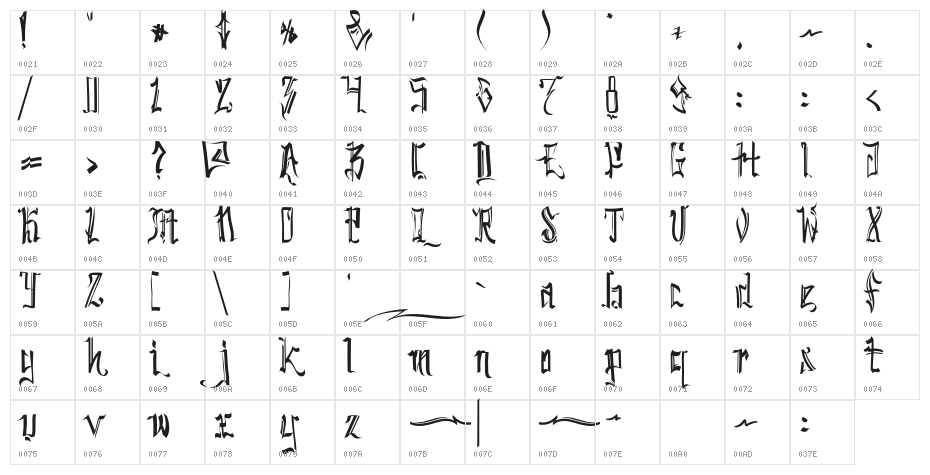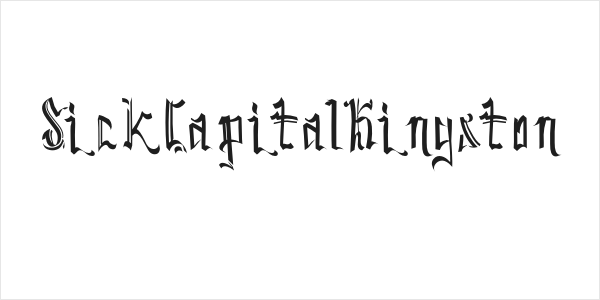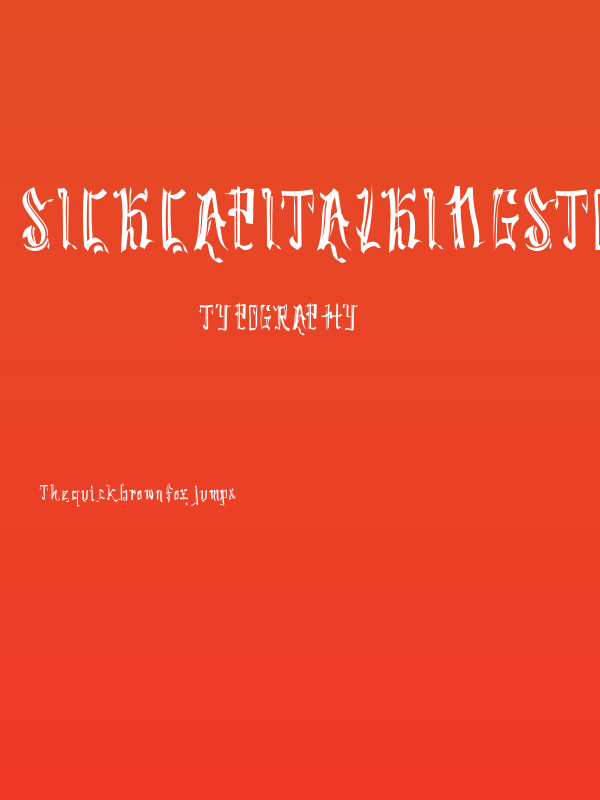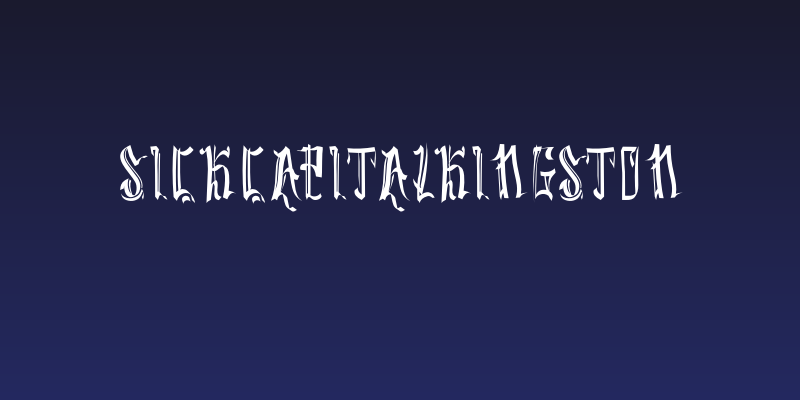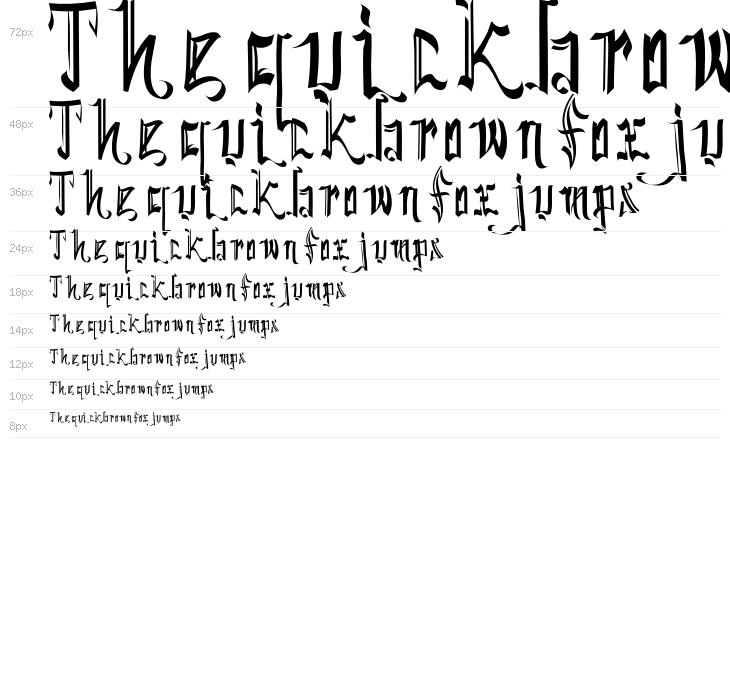
SickCapitalKingston Font
SickCapitalKingston Description
This font exhibits a striking and bold blackletter style, characterized by its sharp, angular lines and intricate detailing. The uppercase letters are tall and imposing, with dramatic flourishes that enhance their gothic appearance. The lowercase letters maintain the same level of detail, offering a cohesive look throughout the typeface. Numbers and special characters are equally ornate, ensuring consistency across all text elements. This font's unique style is reminiscent of medieval script, making it ideal for projects that require a historical or dramatic flair.
| Overall Style | Gothic, Dramatic |
| Proposed Projects | Ideal for tattoo designs, gothic-themed posters, album covers, and historical reenactment materials. |